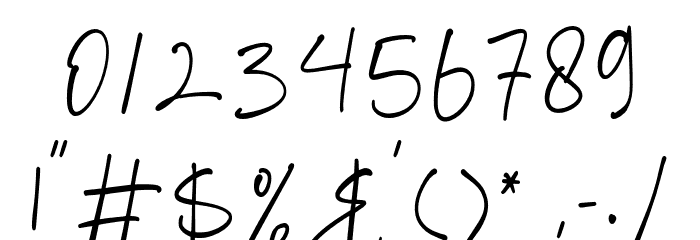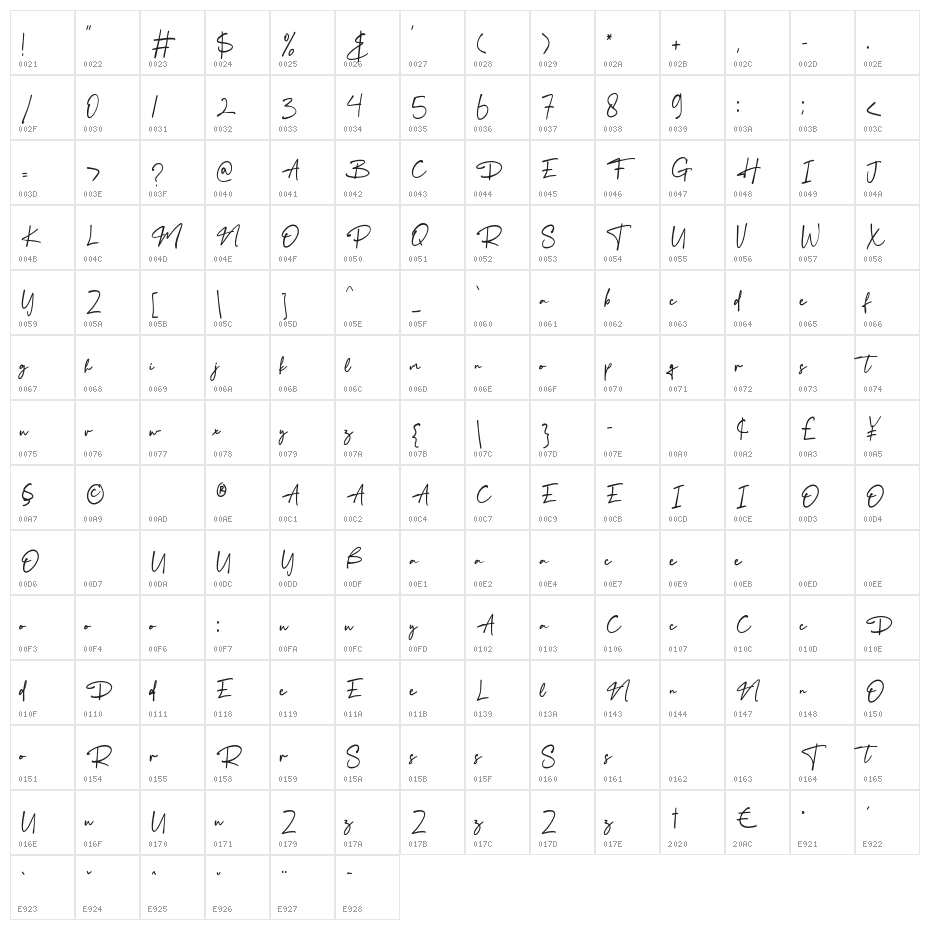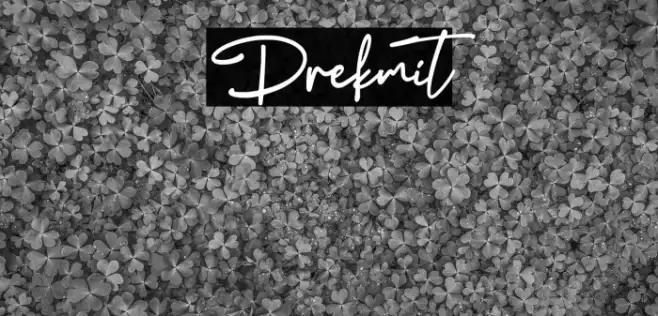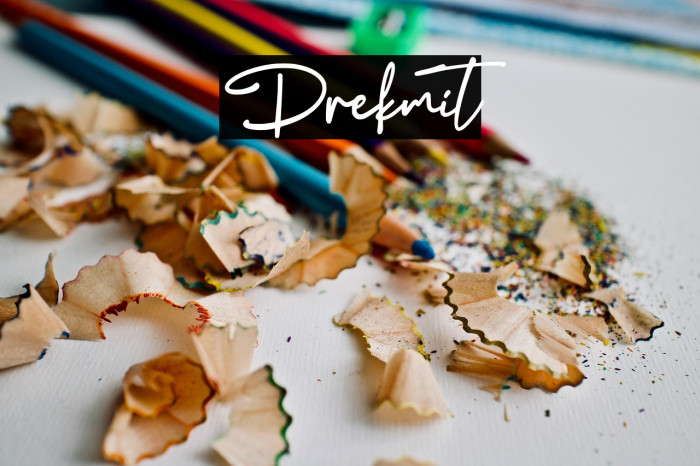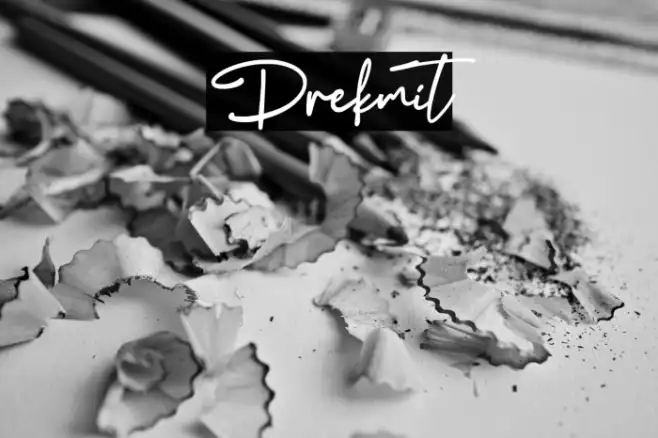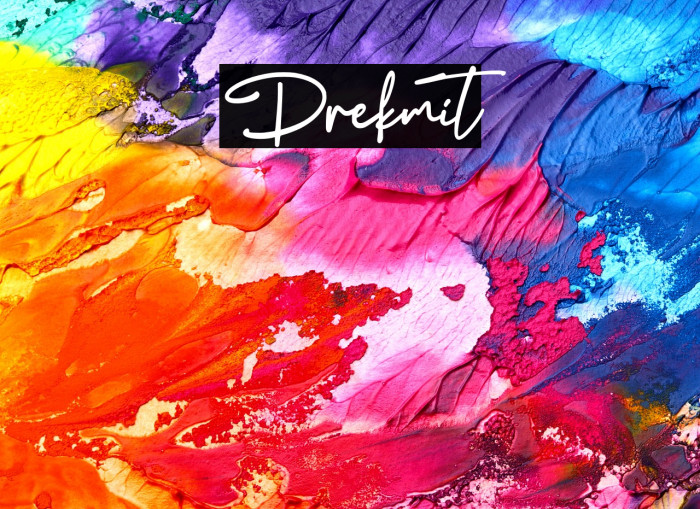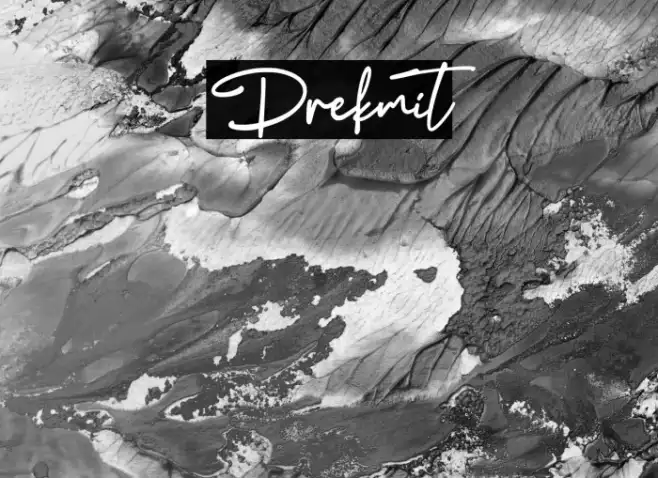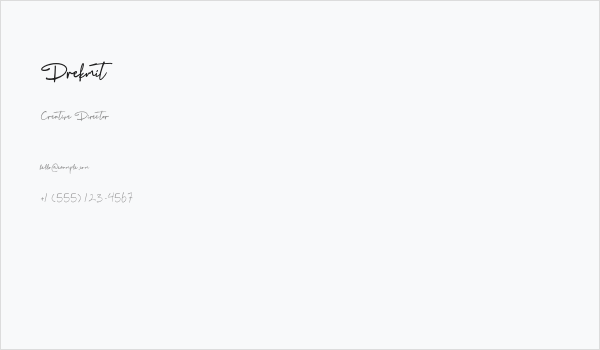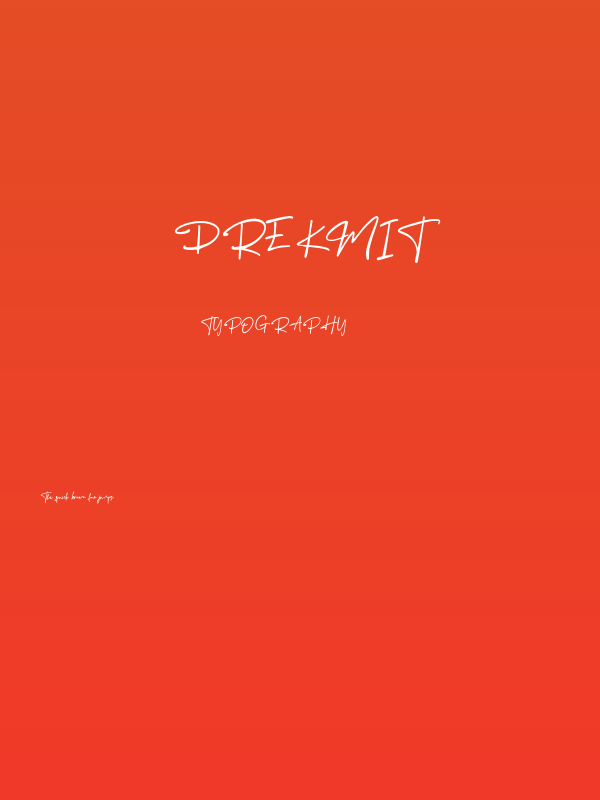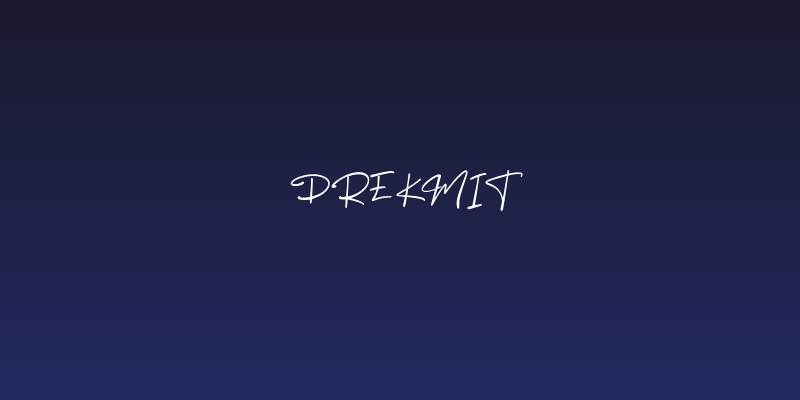
Drekmit Font
Drekmit Description
This font exudes a casual, handwritten style with a playful and dynamic character. The letters are slightly slanted, giving it a natural flow reminiscent of quick, personal notes. The strokes vary in thickness, adding a lively and spontaneous feel. The uppercase letters are bold and prominent, while the lowercase letters maintain a consistent, smooth appearance. Numbers and special characters are crafted with the same informal flair, making them blend seamlessly with the alphabet. This font is perfect for projects that require a personal touch, such as greeting cards, invitations, or creative branding.
| Use Case | Headlines, Creative projects, Personal notes |
| Proposed Projects | Ideal for greeting cards, invitations, personal branding, and creative projects. |